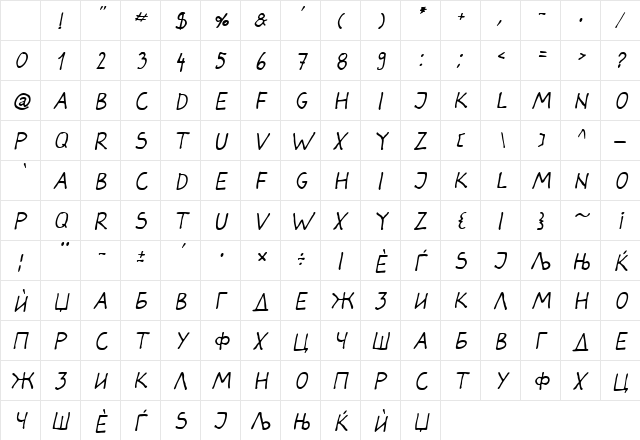
Darbog is a composed and adaptable typeface that performs quietly and consistently across a wide range of design contexts. The slanted form adds forward momentum and visual energy.
Pro Tip: Use Darbog for emphasis, pull quotes, and subheadings where its slanted energy can add rhythm to the layout.